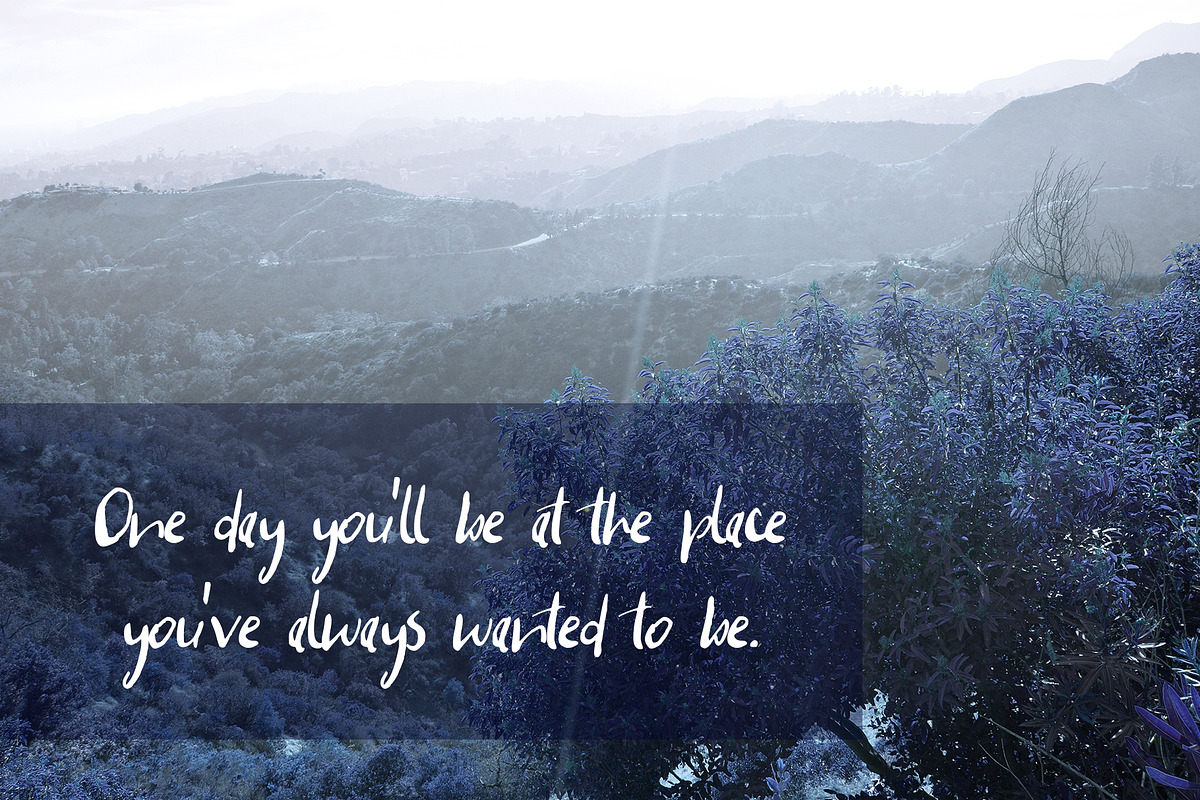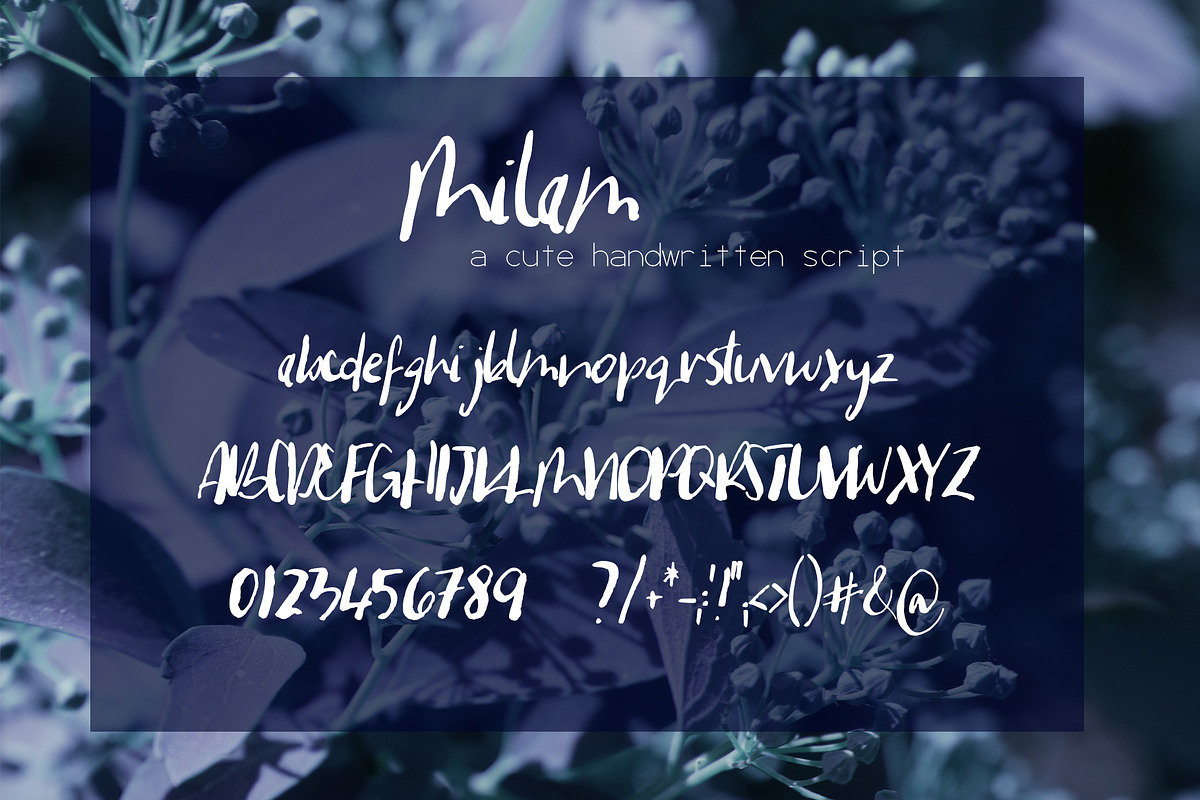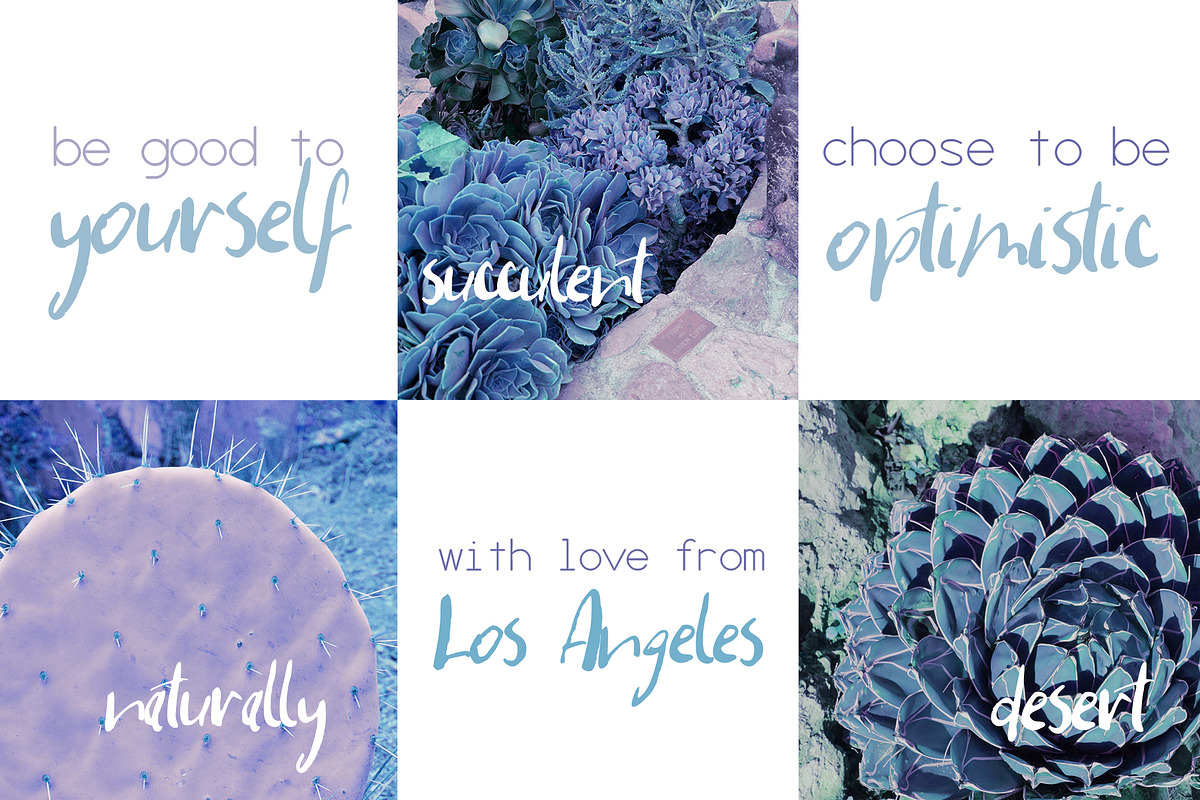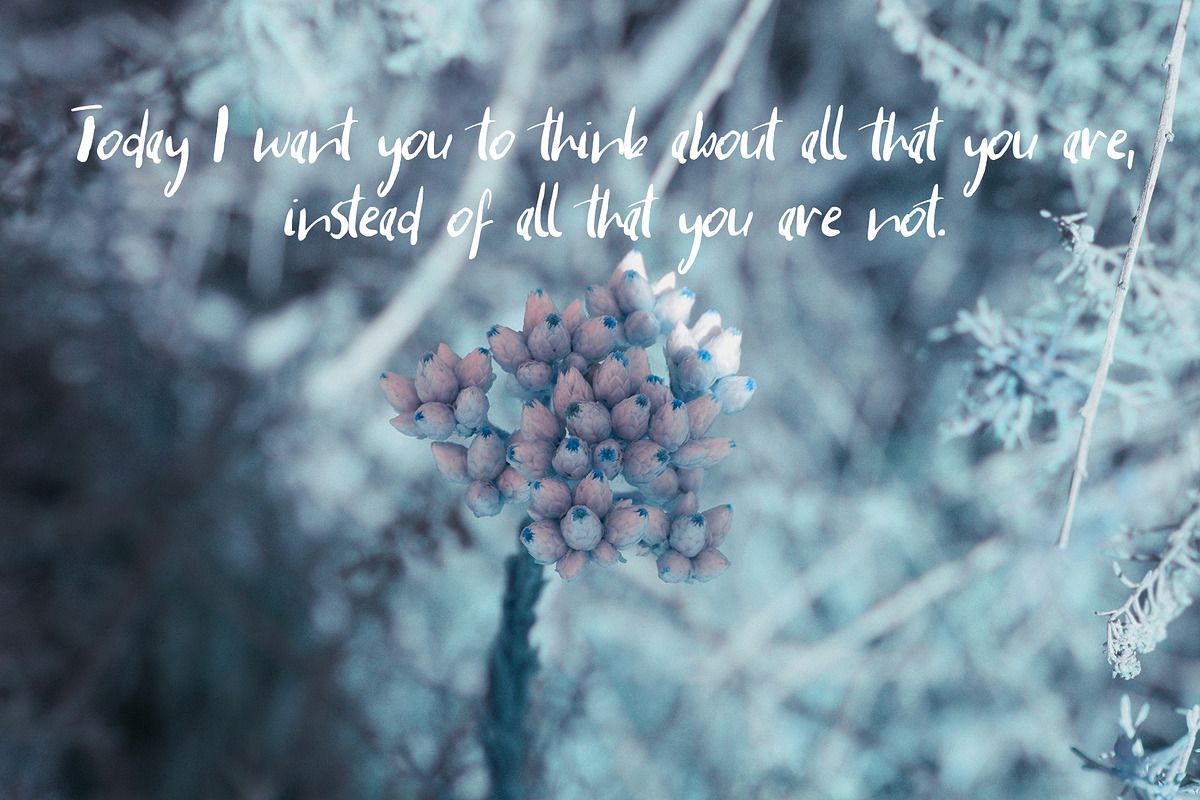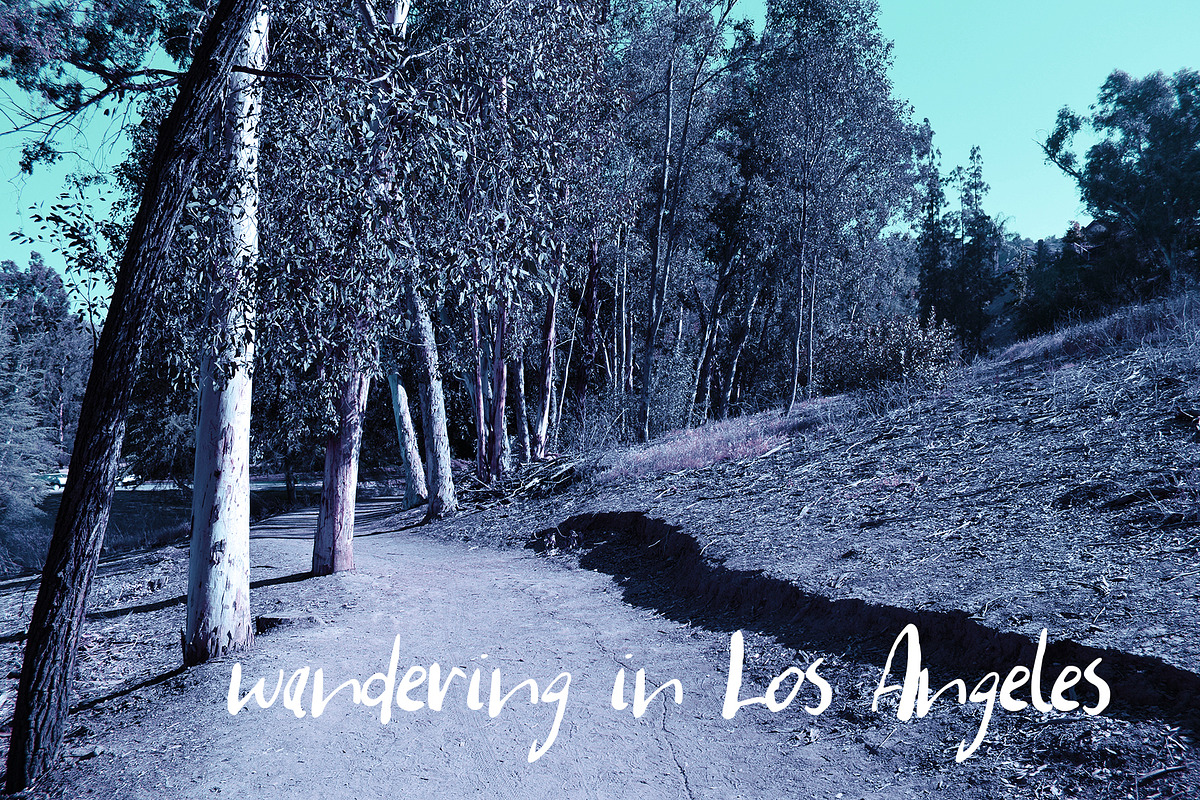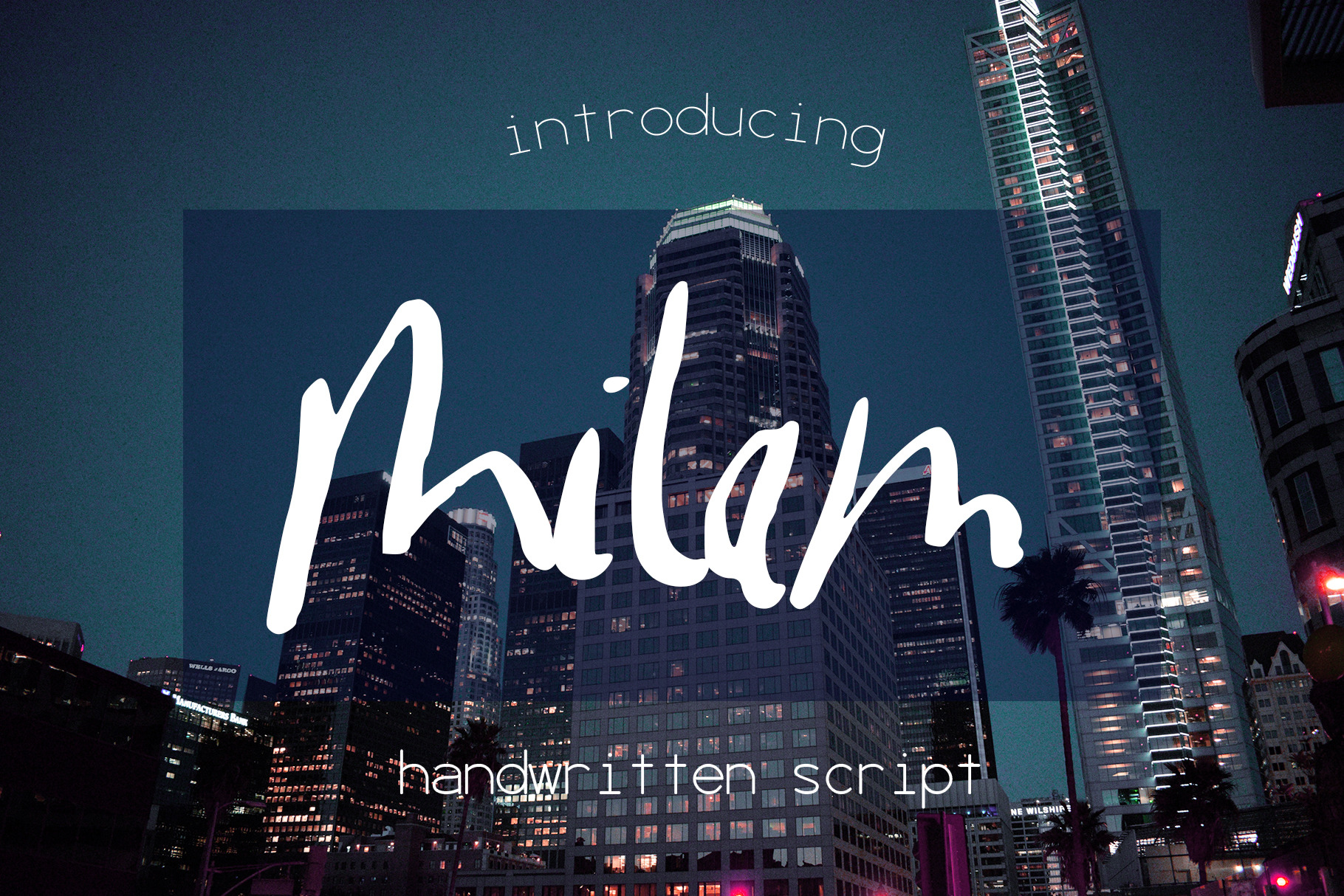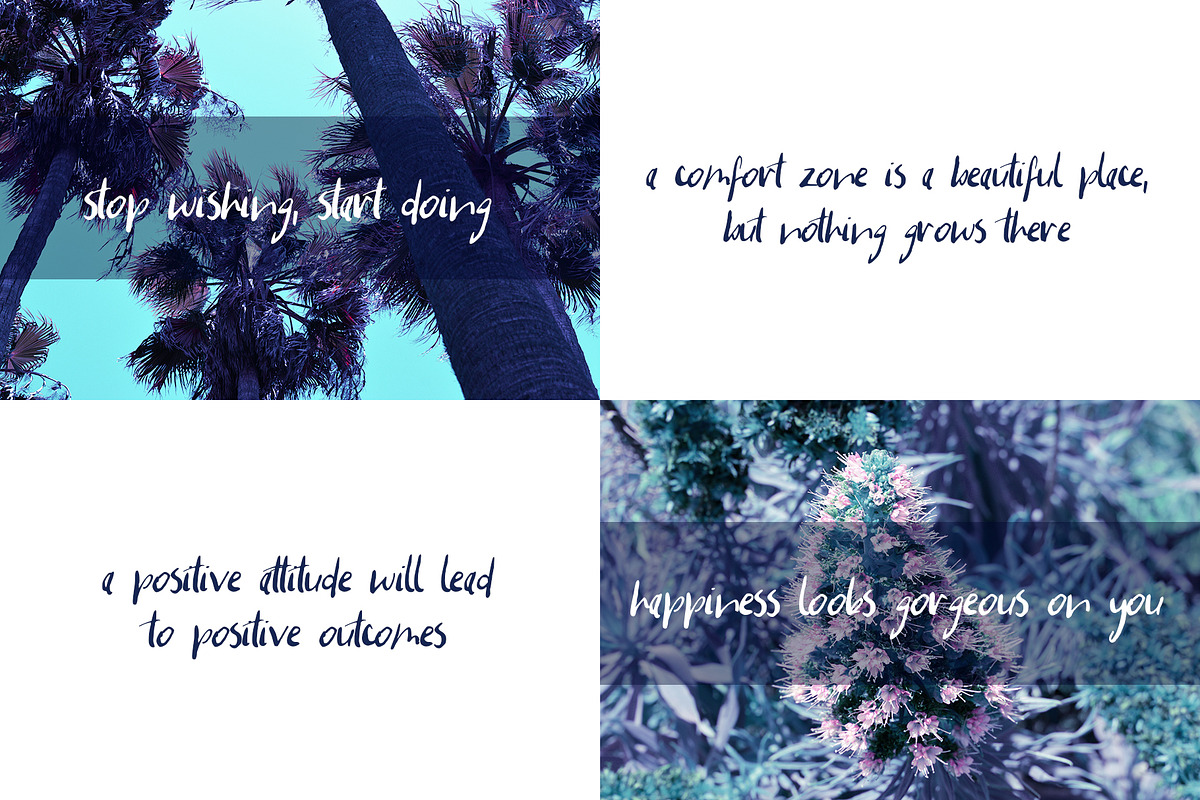
Milam Font
Introducing Milam, a gorgeous handwritten script.💗 Perfect for any graphic and logo designs, wedding and birthday invitations.
Milam font contains uppercase & lowercase characters, numbers and punctuations.